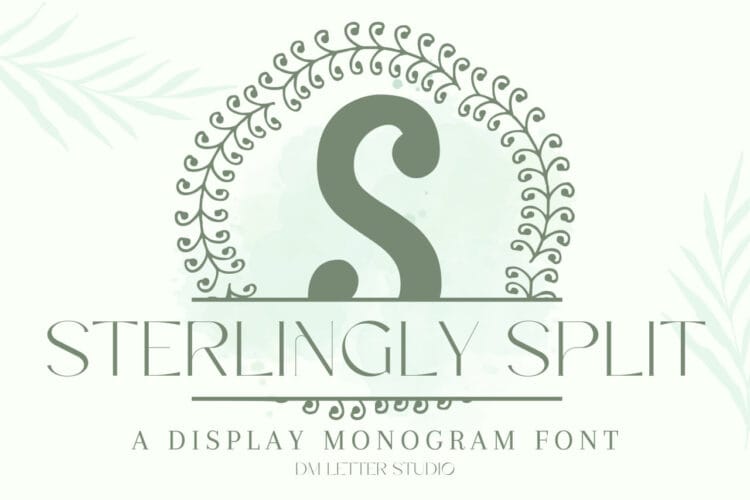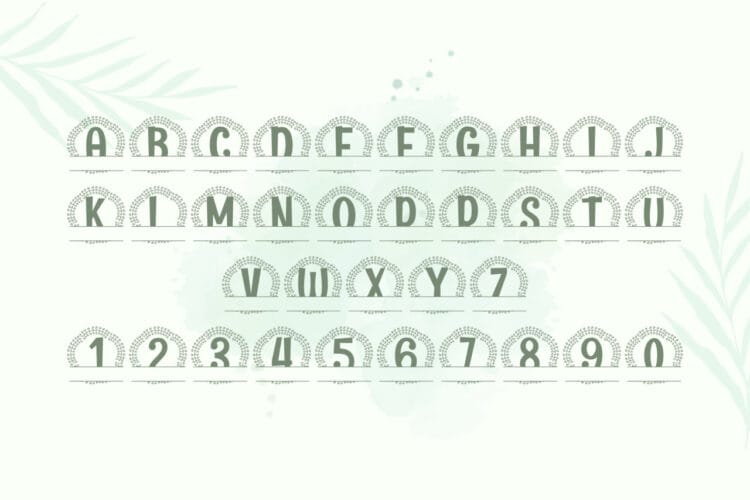
Meet Sterlingly Split Monogram Font
Sterlingly Split Monogram Font turns any initial into a poised, name-ready emblem in seconds. Calm, balanced letterforms carry subtle luxury, while a precise horizontal split creates natural space for names, dates, or short words. Because spacing stays even and counters remain open, your designs look polished on tiny tags, door hangers, tumblers, ornaments, menus, and statement wall art. Pair it with a clean sans or a light script and every layout stays readable and refined.
Where this split monogram font shines
Set one hero initial and place the family name inside the split for instant personalization. Try couple names for engagement gifts, venue names for signage, or short words like Home, Welcome, and Love for seasonal décor. Since proportions favor clarity, files scale smoothly for Cricut, Silhouette, Glowforge, and laser projects. As a result, batching custom orders becomes fast and consistent across product lines and shop listings.
Fast setup, premium results
Design tips for Sterlingly Split Monogram
Keep the hero initial large and let white space breathe. Place the split at center or slightly low for a steady baseline. Then, Choose a simple secondary font inside the split to protect legibility on small items. Because the style is elegant and airy, metallic foils, linen textures, pearlescent stocks, and natural woods add instant value. Keep names concise so the composition remains balanced and clear at thumbnail size.
Why makers choose this split monogram font
You want fast personalization that still feels bespoke. Sterlingly Split Monogram Font delivers consistent, high-end name designs in minutes while keeping your shop’s visual language cohesive from gifts to signage.